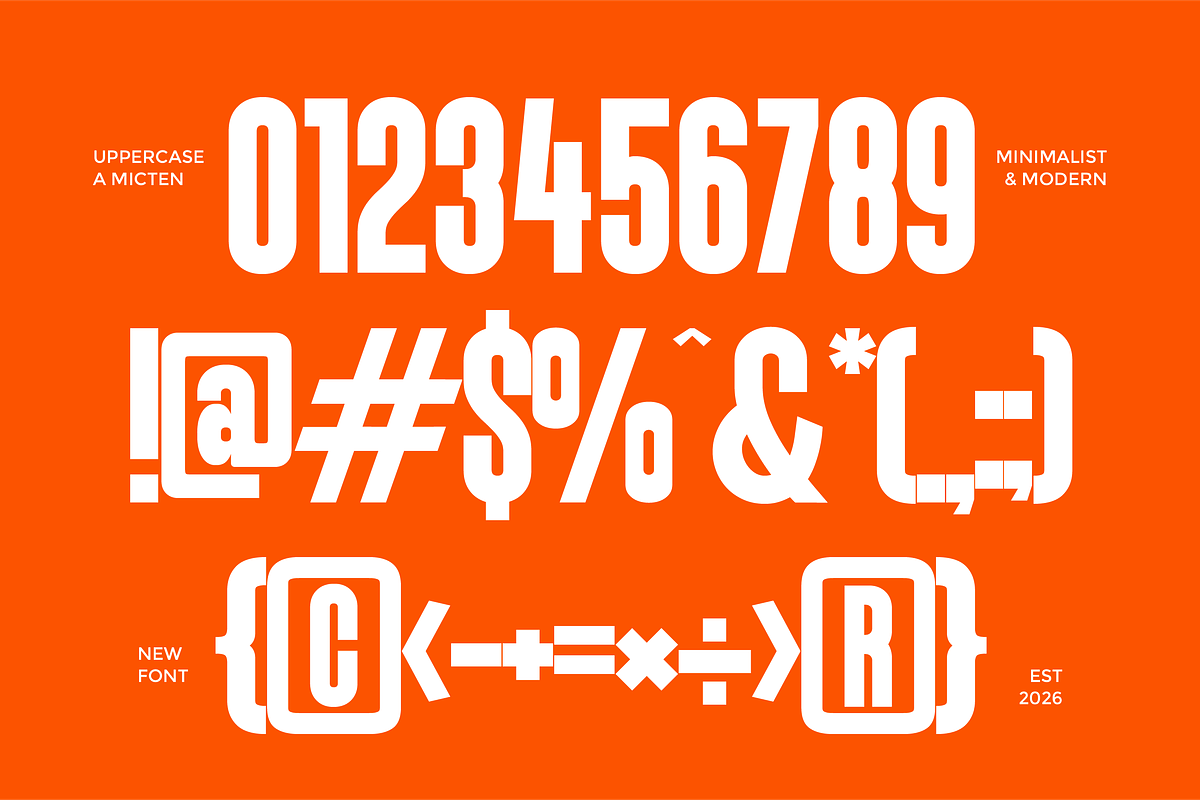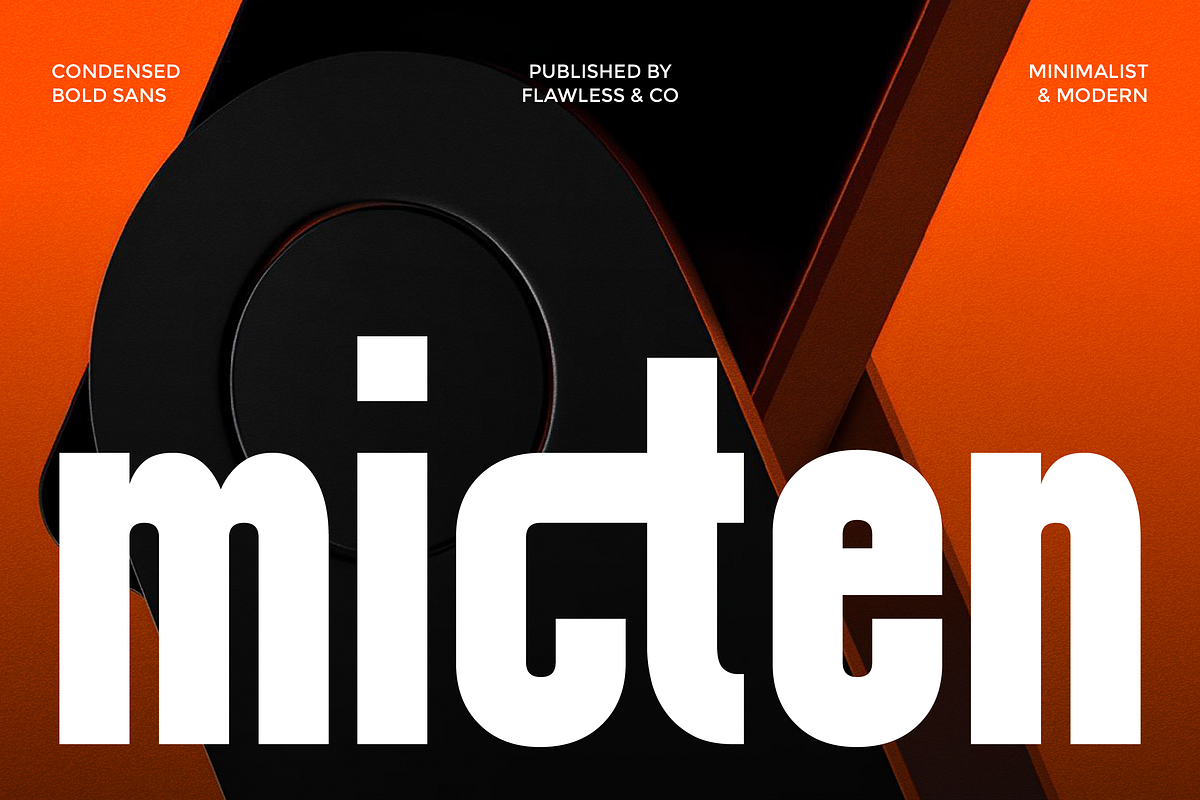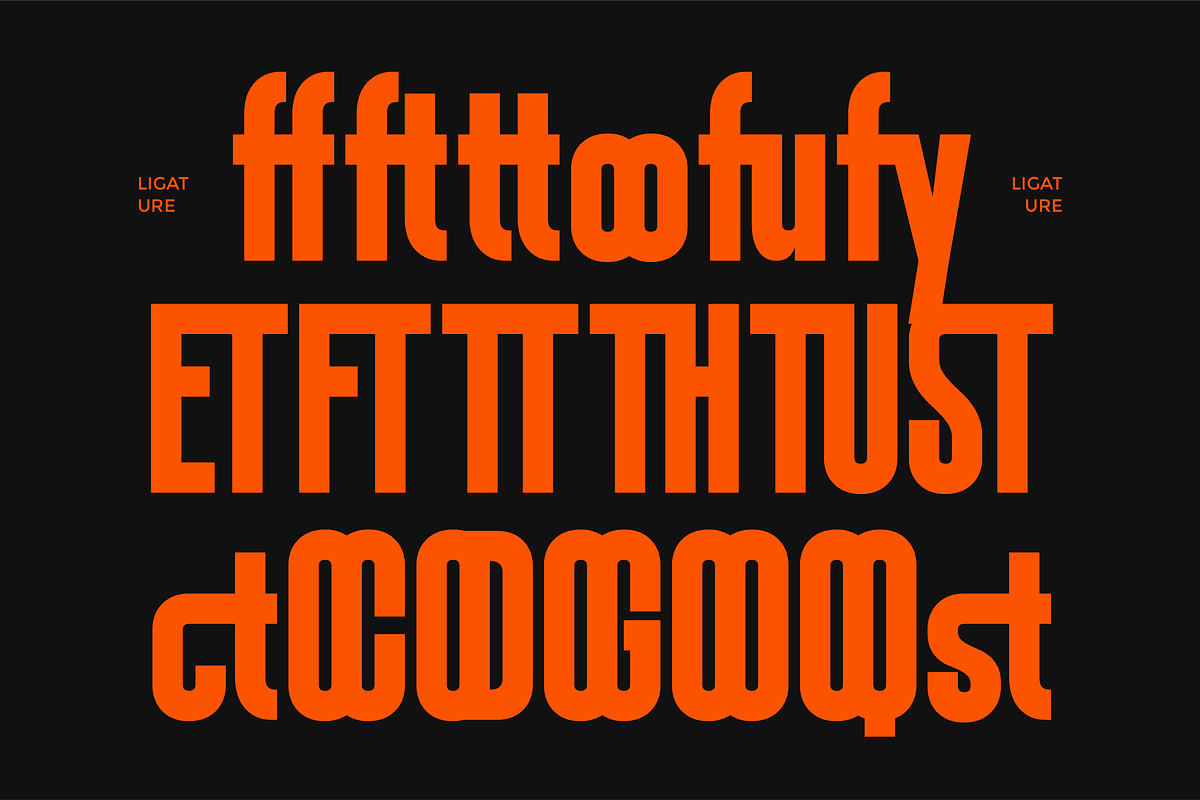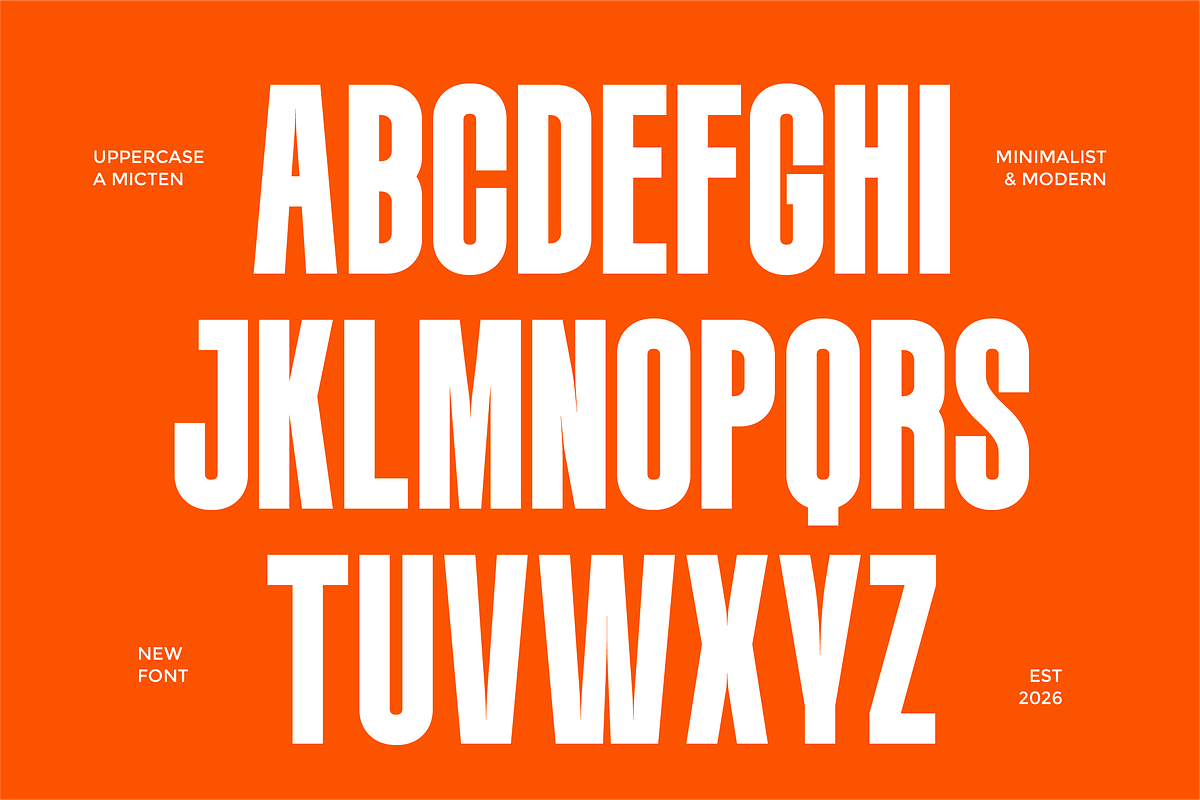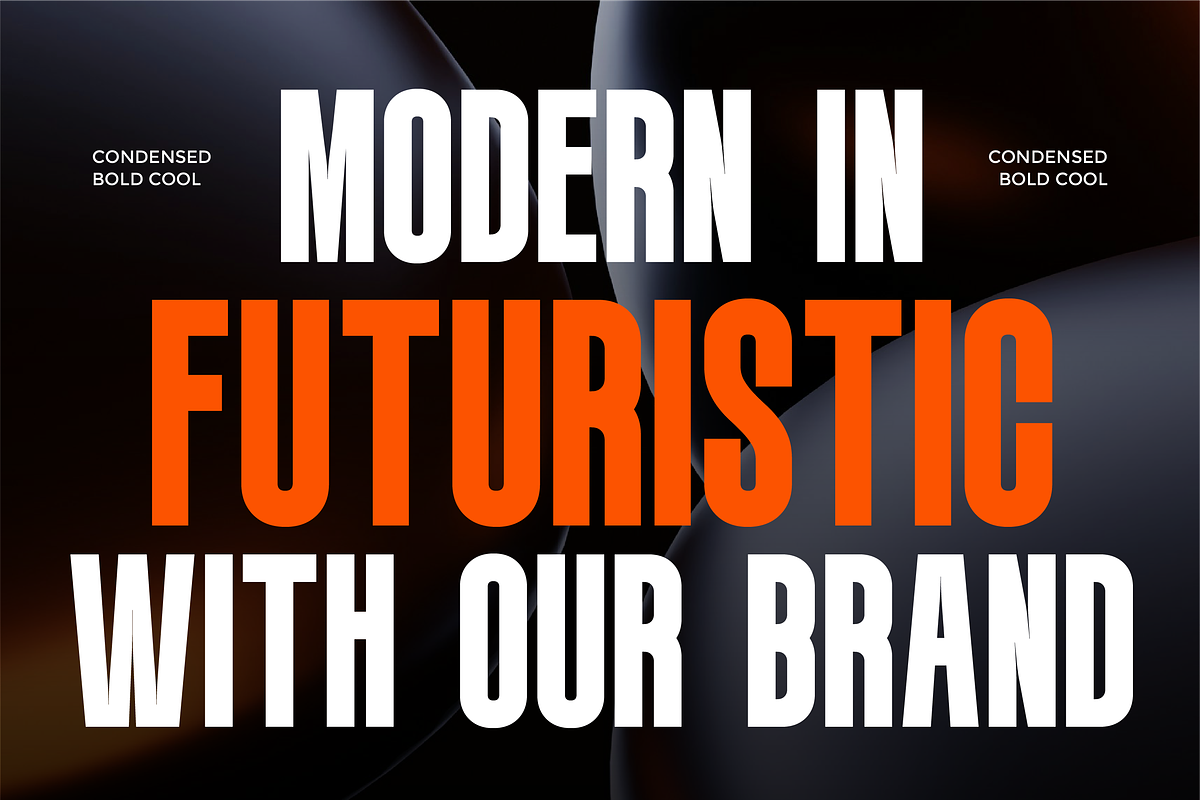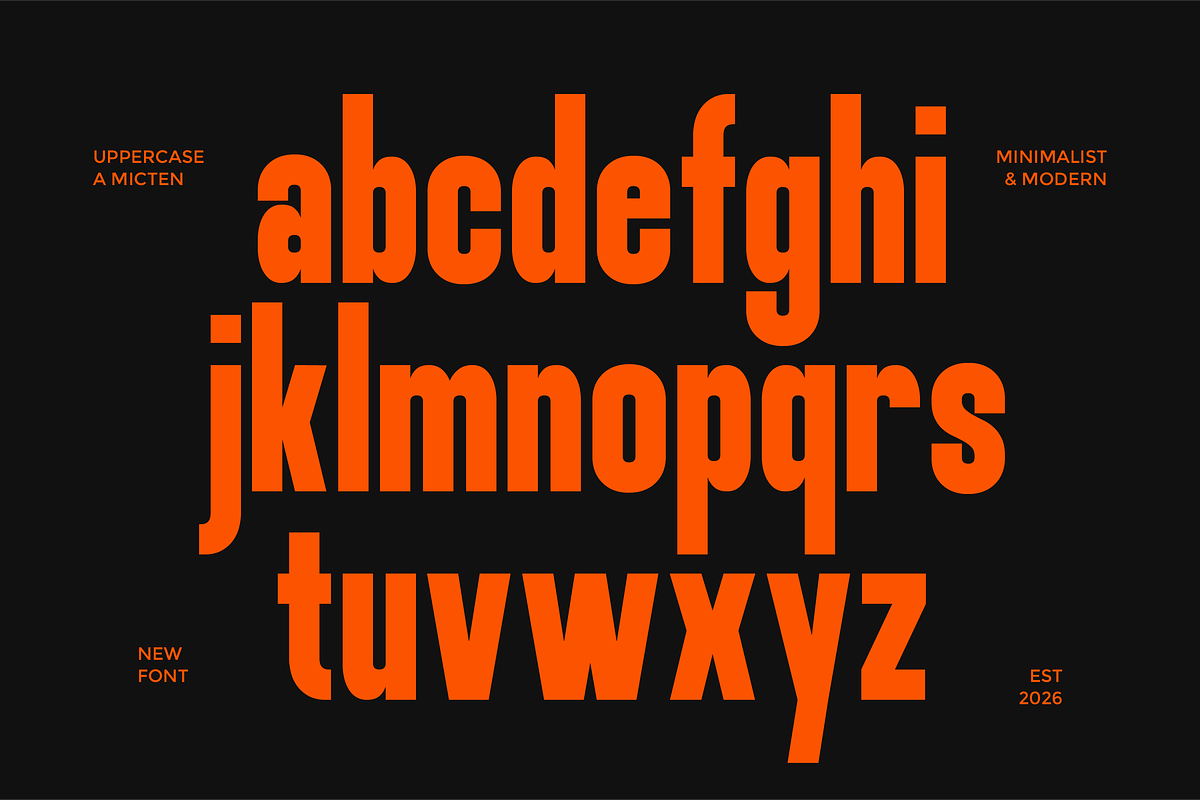
Micten
Micten - Bold Condensed Sans Serif Font
Micten is a modern bold condensed sans serif font crafted for designers who need strong typography with a sleek and space-efficient appearance. Featuring narrow proportions, powerful strokes, and clean contemporary details, Micten delivers a commanding visual presence that instantly attracts attention. Its condensed structure allows more content to fit into limited spaces while maintaining excellent readability and a bold professional character.
Alternates & Ligatures
Who Should Use Micten?
Micten is perfect for designers, creative agencies, startups, and brands looking for a condensed sans serif font with bold visual impact and contemporary appeal. It’s especially suitable for projects that require strong typography, efficient spacing, and modern design aesthetics.
Suitable For:
Modern branding and visual identity
Logo and headline design
Poster and advertising campaigns
Editorial and magazine layouts
Sports and automotive projects
Technology and startup branding
Social media content
Contemporary display typography